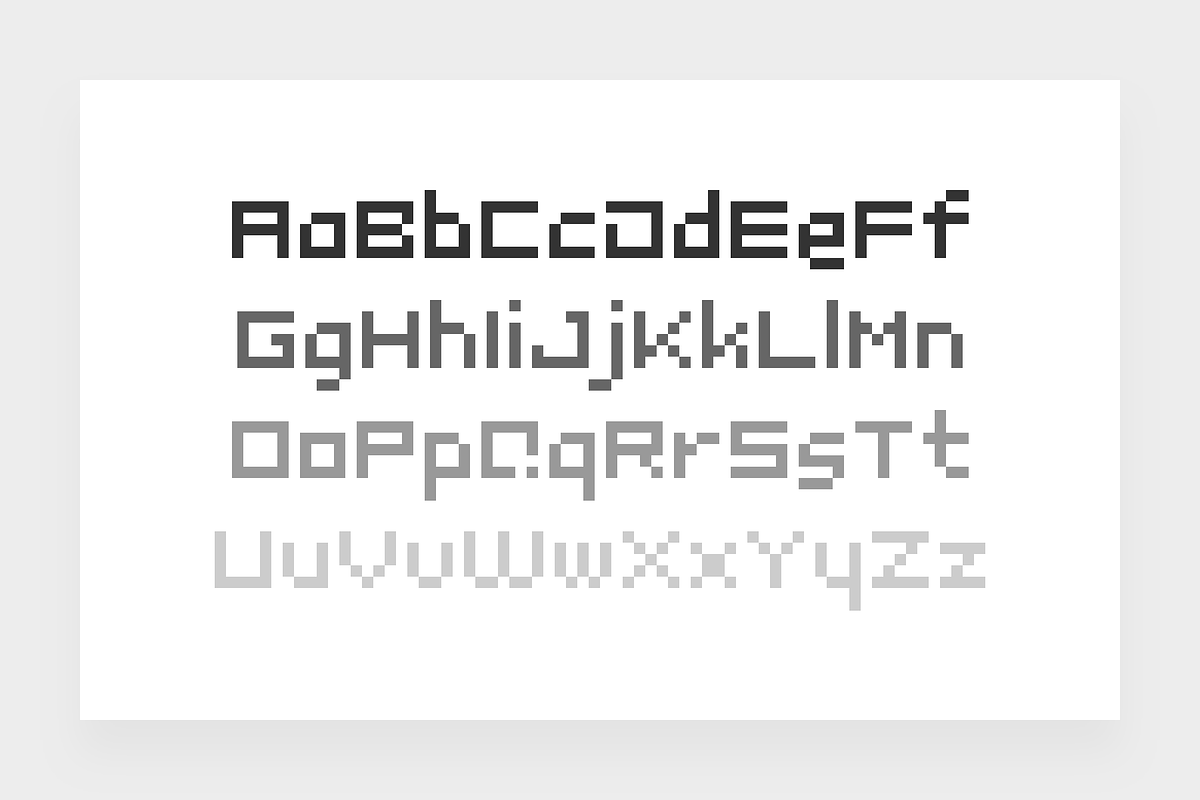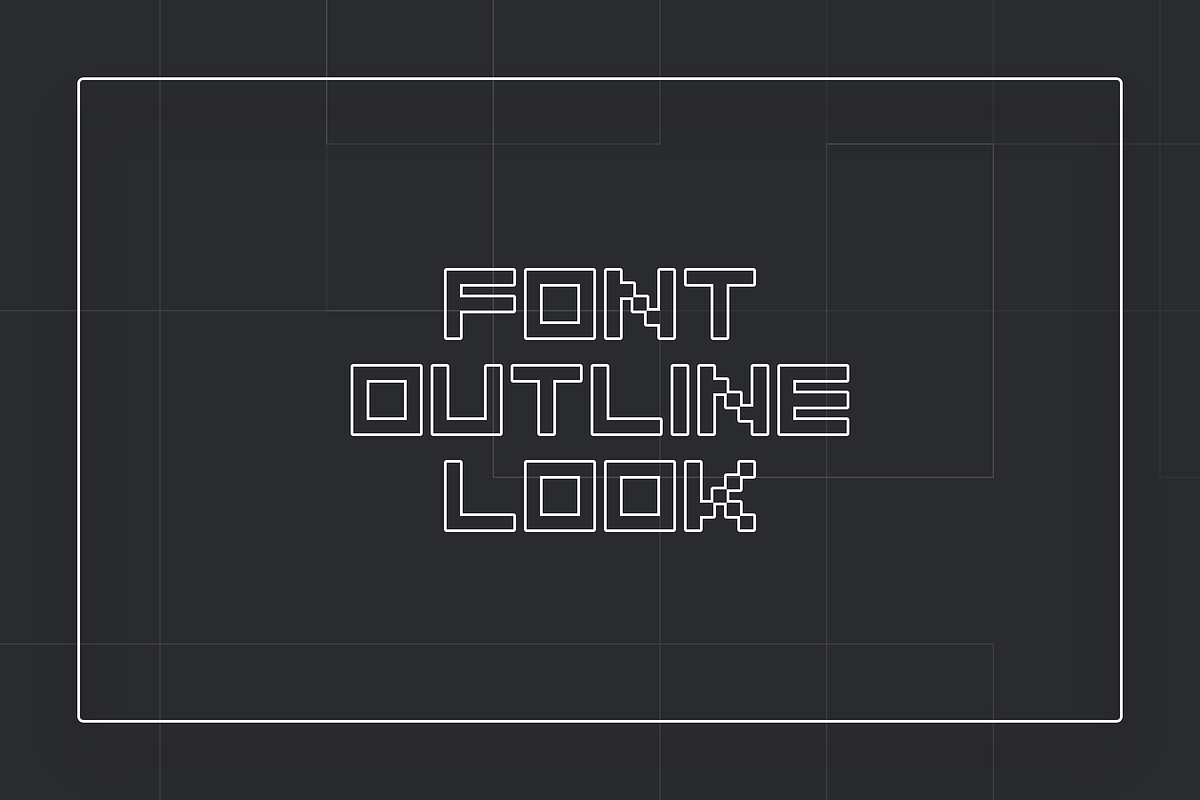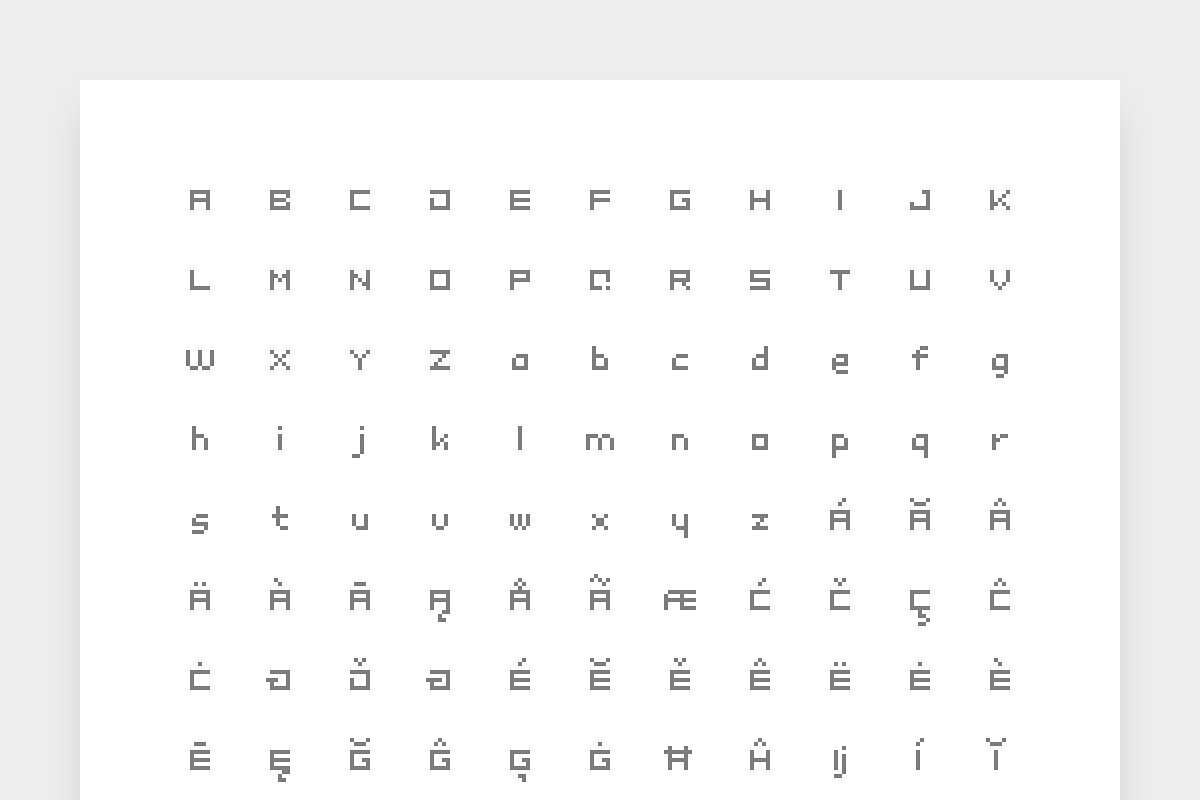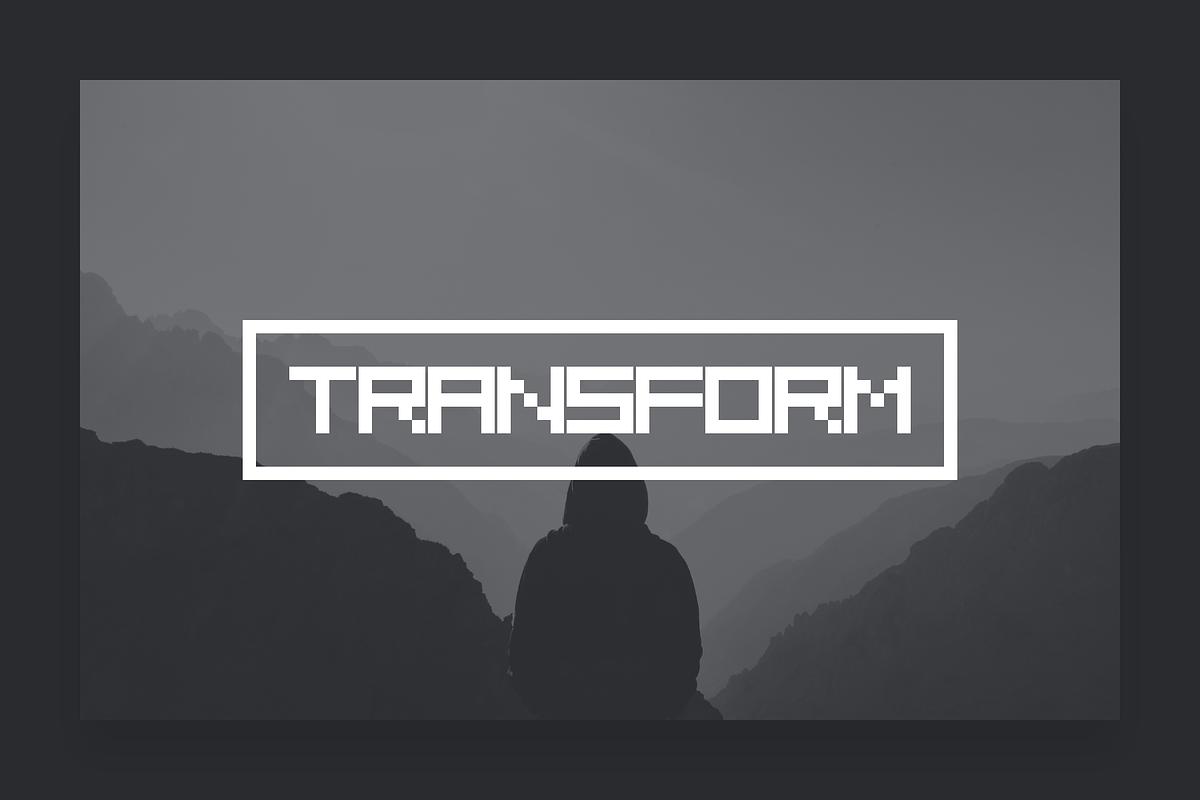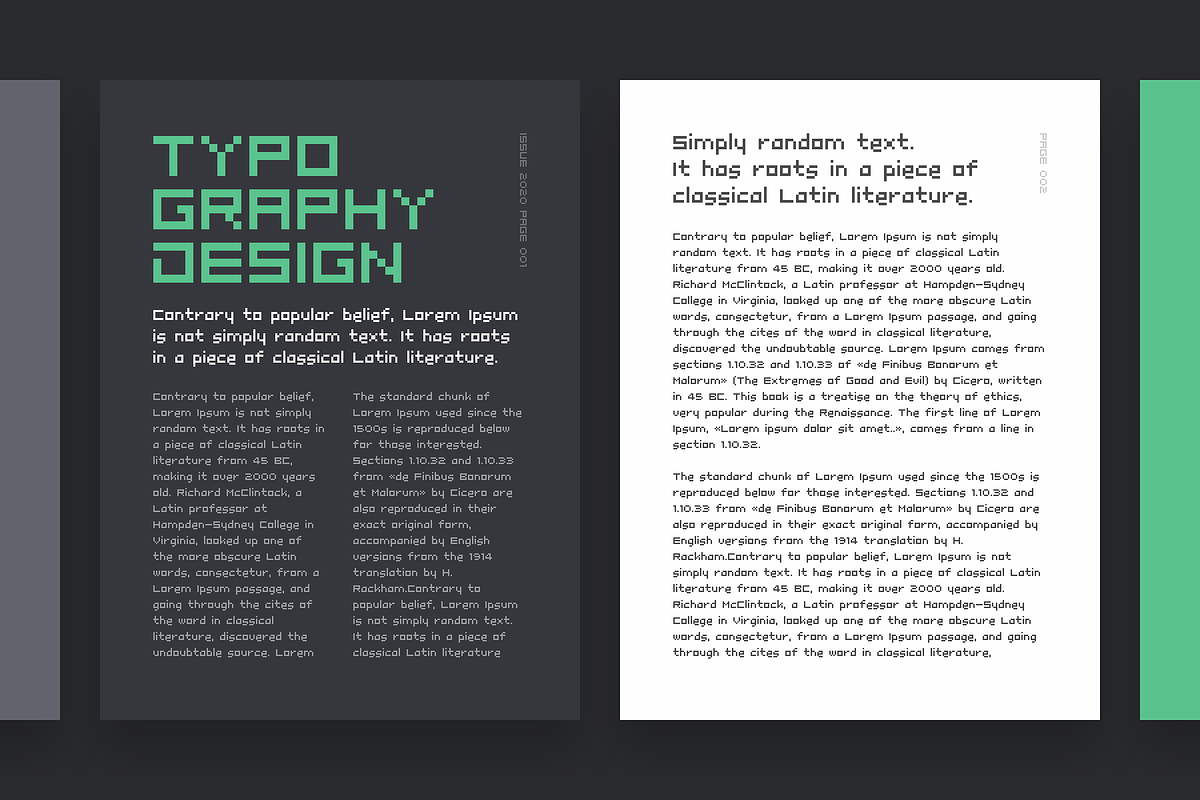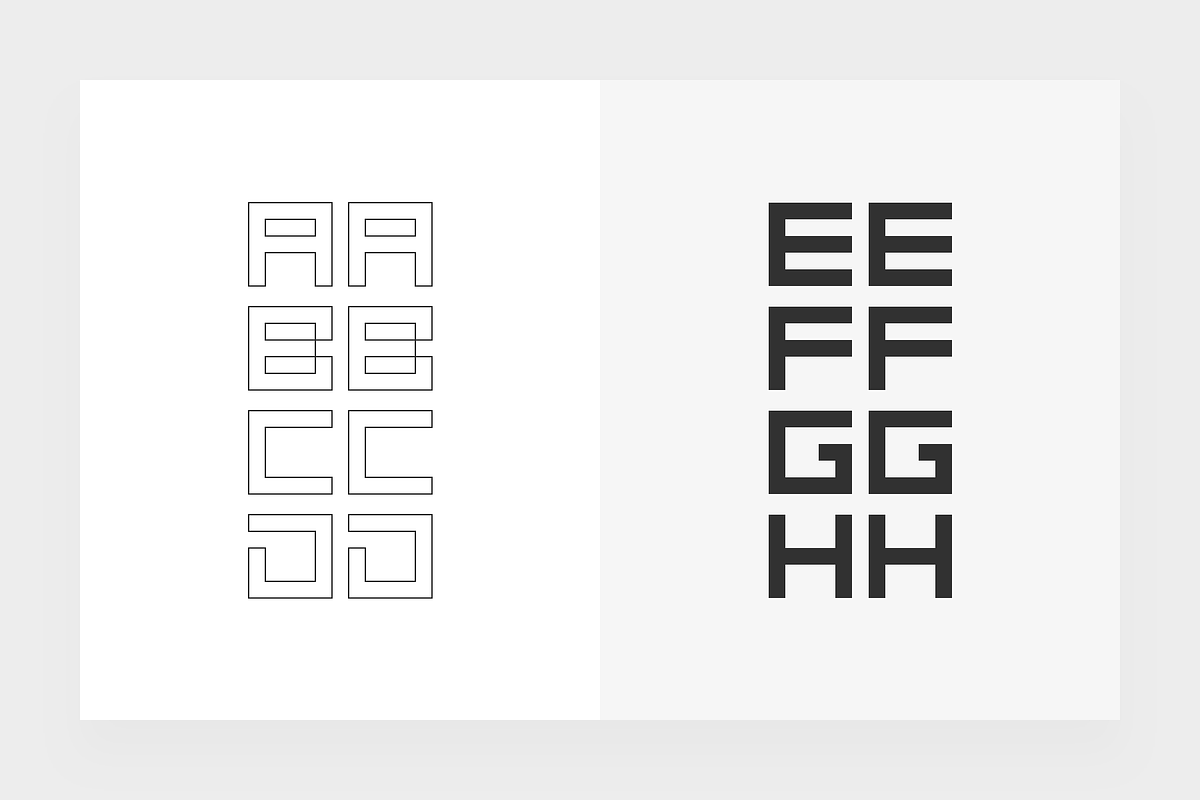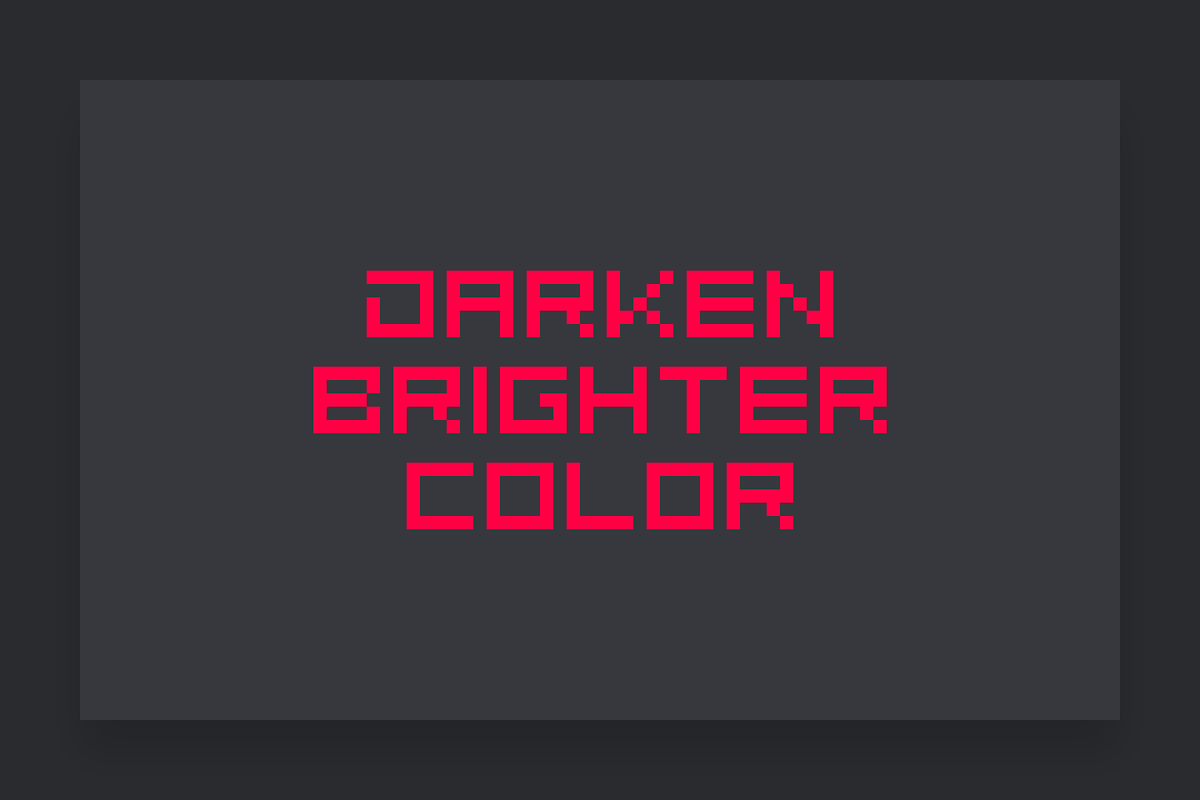
Definety: The Pixel Perfect Font
Definety is a clean and sharp pixel font with lowercase and uppercase glyphs including Basic Latin, Extended Latin A, Cyrillic, numbers, and special symbols. Carefully crafted for a wide range of purposes like branding, logo, posters, print, games, web, and a lot more.
Pixel perfect font size starts from 8px/pt and continues by adding another 8 points to the size. Examples: 8px, 16px, 24px, 32px, 40px...